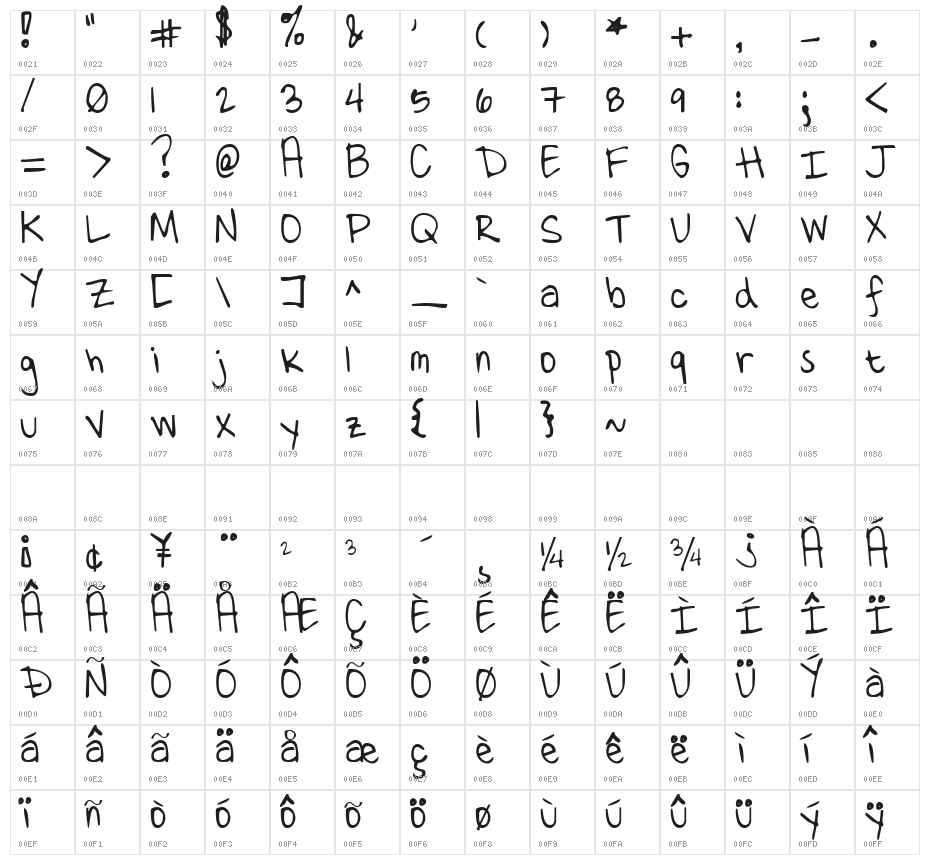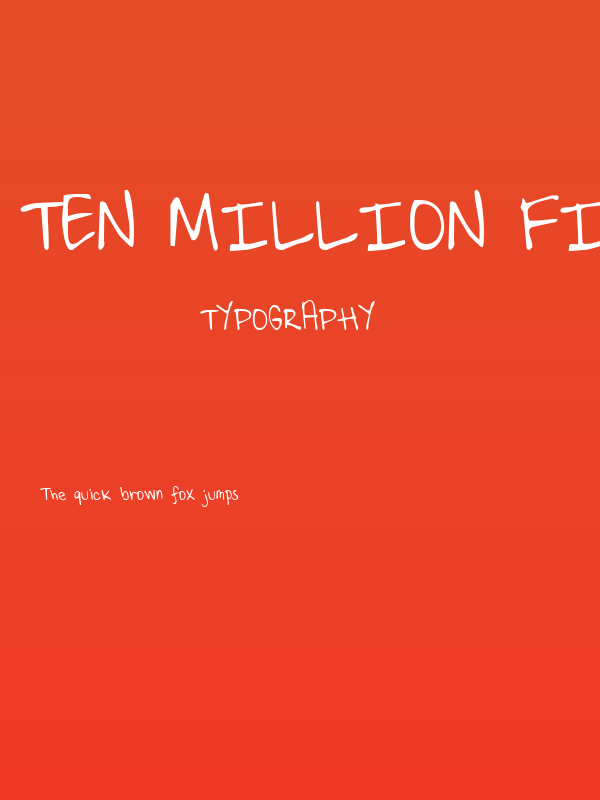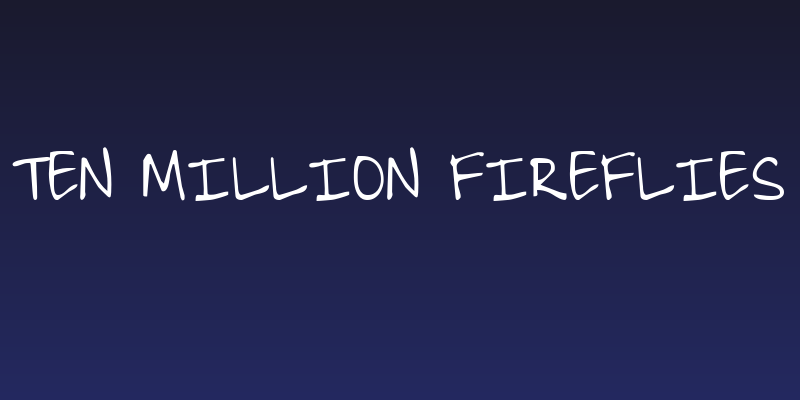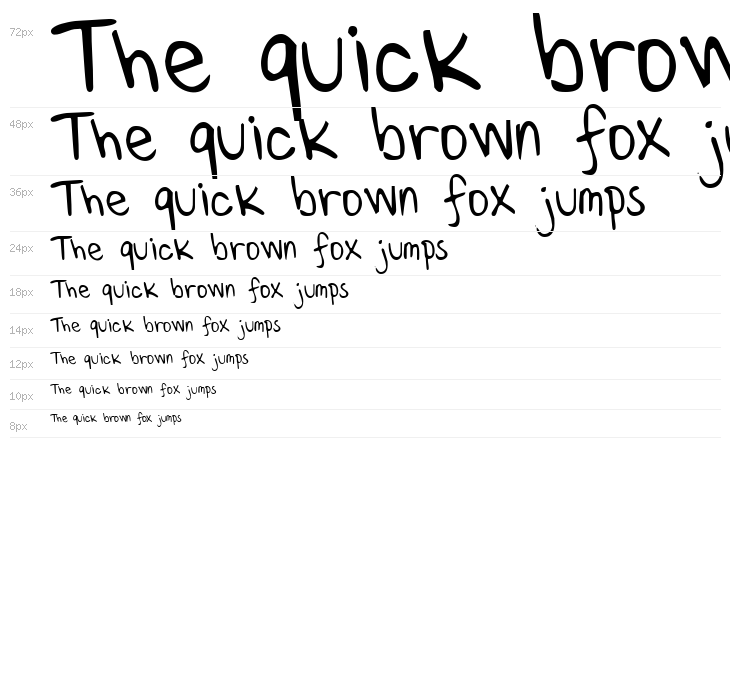
Ten Million Fireflies Font
Ten Million Fireflies Description
This font exudes a playful and informal vibe, characterized by its handwritten style. The letters are uneven and slightly irregular, giving it a casual and approachable feel. The strokes are moderately thick, contributing to a bold appearance, yet the overall design remains friendly and inviting. The characters have a natural flow, reminiscent of quick, spontaneous writing, which adds to its charm. The spacing between characters is relatively tight, enhancing the cohesive look of the text. This font is versatile for creative projects that aim to convey a personal touch or a sense of whimsy.
| Proposed Projects | Ideal for greeting cards, children's books, casual branding, and social media graphics. |